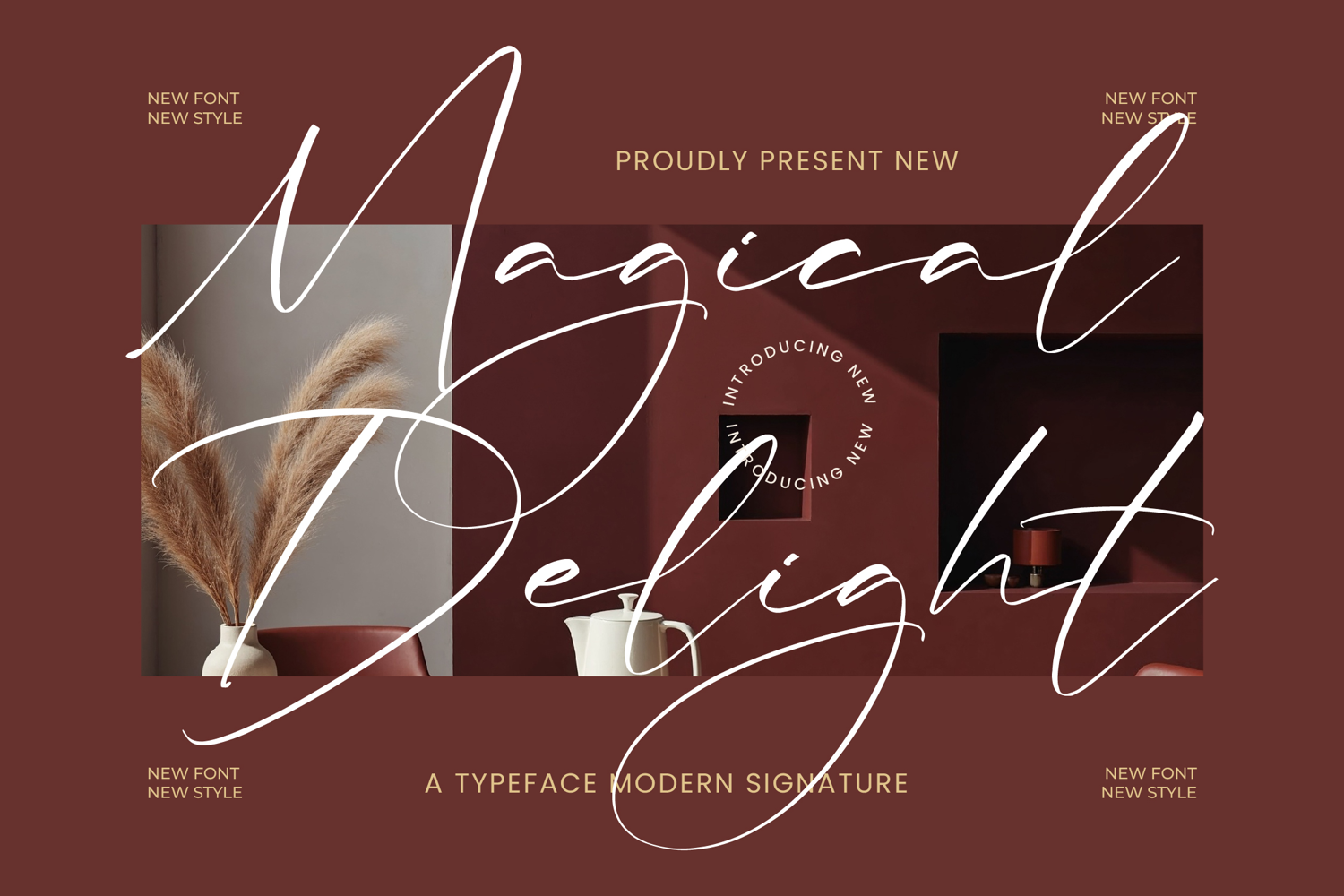
Magical Delight
Discover Magical Delight, a sophisticated handwritten script font blending modern elegance with signature flair—think pampas grass vibes and premium typography. Features fluid strokes, uppercase/lowercase harmony, numbers, symbols, ligatures, and swashes—PUA encoded for Photoshop, Illustrator, or Cricut. TTF/OTF formats ready for instant use.
Perfect For:
• Luxury branding & logos
• Wedding invites & signatures
• Elegant packaging & labels
• Social quotes & modern crafts